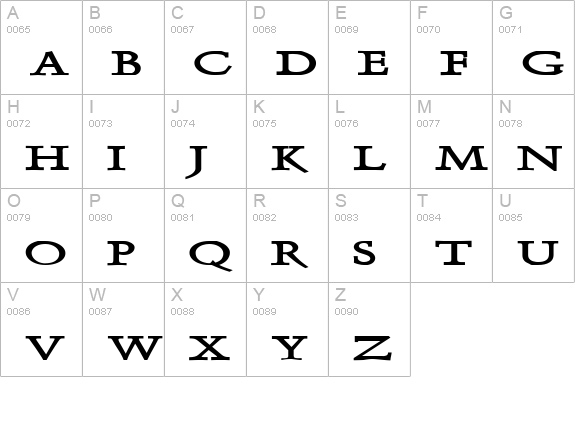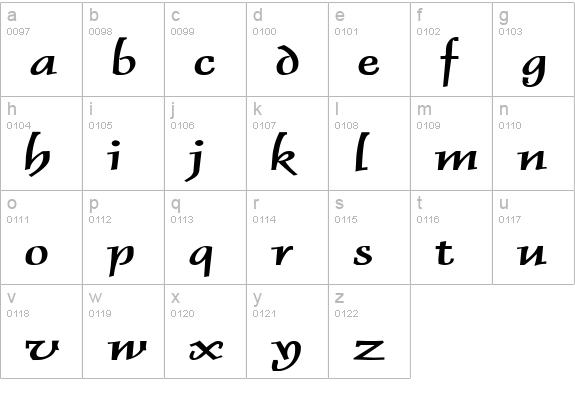
Dolphin Extended Bold is a strong, high-contrast, extended-width variant in the Dolphin typeface family \xE2\x80\x94 well suited to headlines, attention-grabbing titles, and strong calls-to-action.
Introducing Dolphin Extended Bold font, a striking and versatile typeface that commands attention with its bold and modern design. The Dolphin Extended Bold font exudes confidence and sophistication, making it perfect for a wide range of design projects. Whether you're creating posters, logos, or branding materials, this font will make your text stand out and leave a lasting impression. What's even better is that Dolphin Extended Bold font is available for free download at FontsMarket.com. Take advantage of this opportunity to elevate your designs with a bold and impactful typeface that is sure to make a statement. Download Dolphin Extended Bold font today and unleash your creativity with this powerful and eye-catching font.